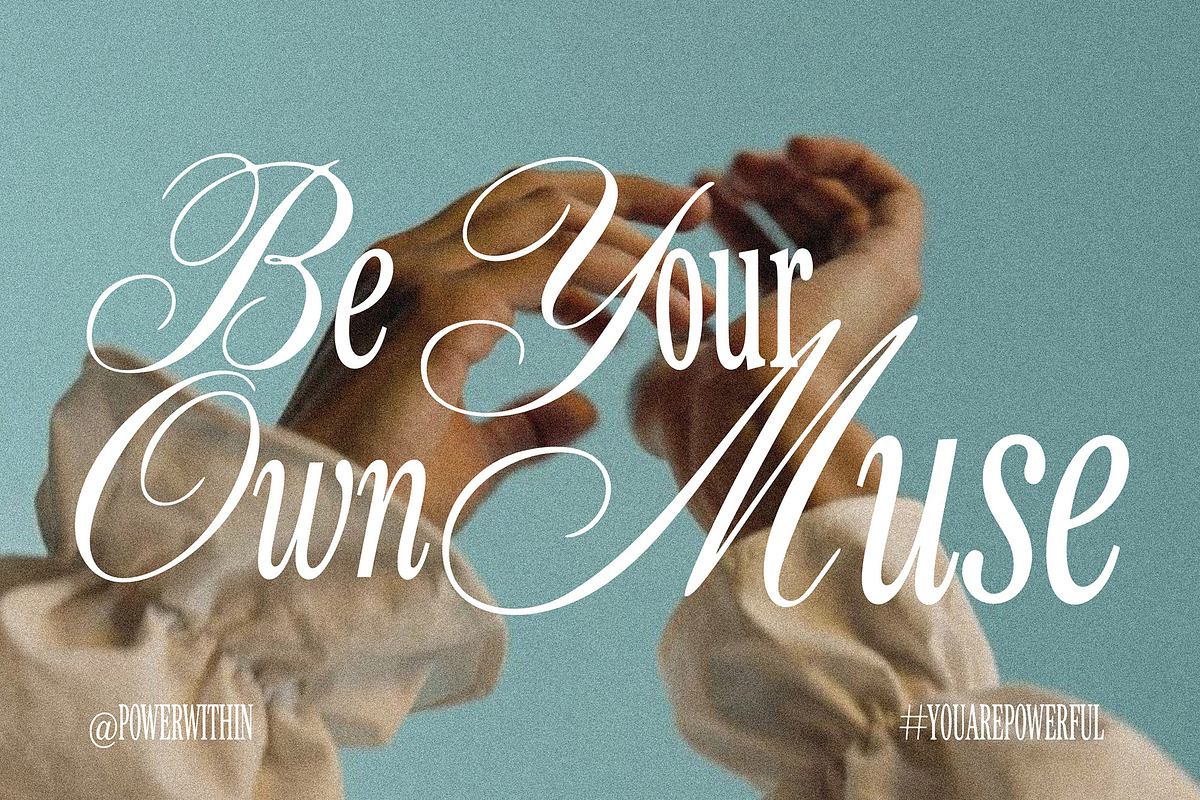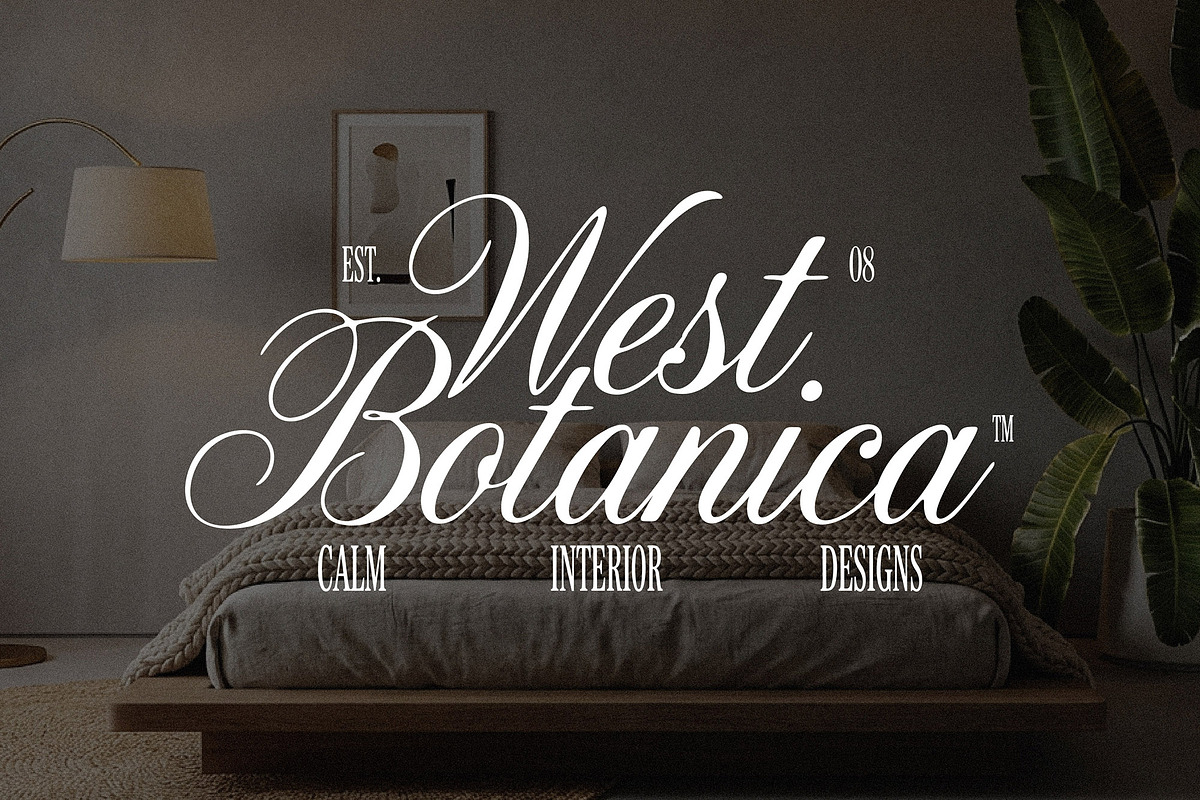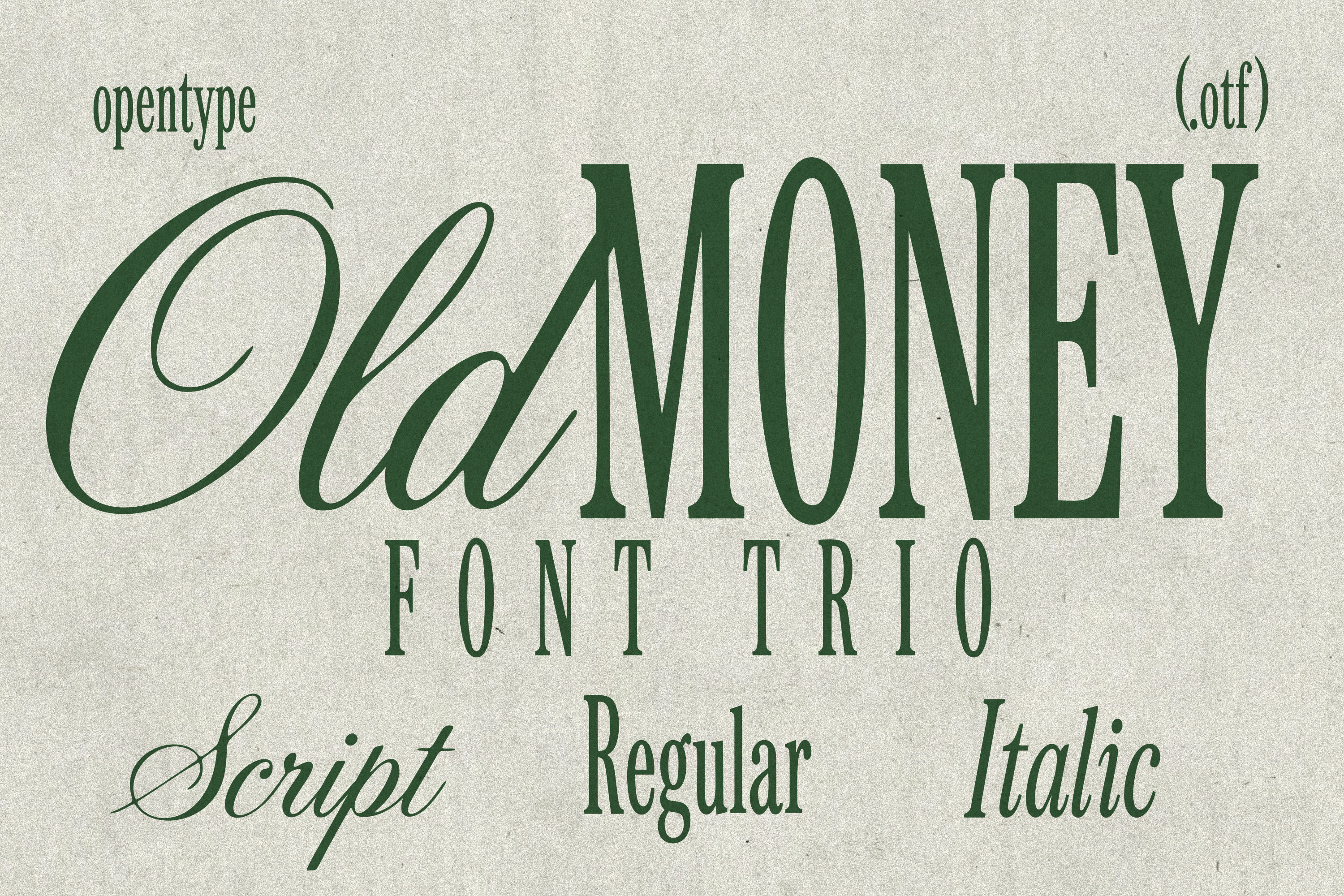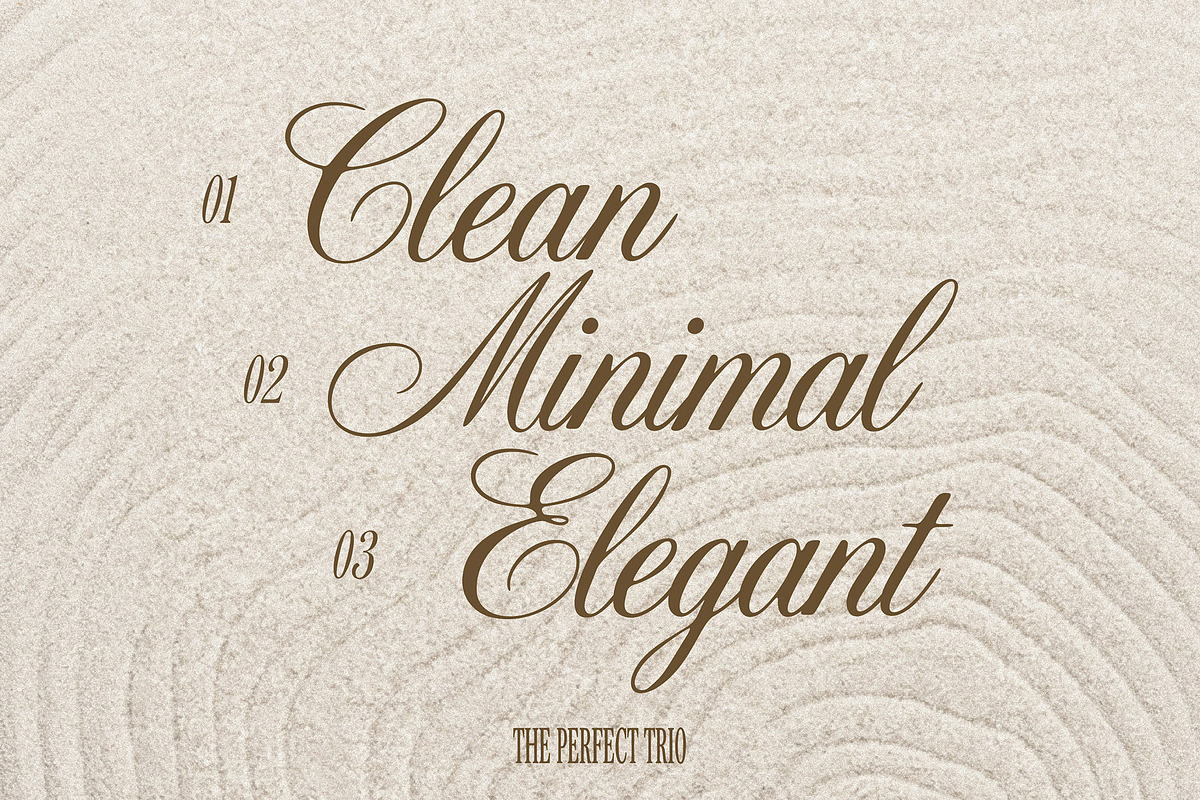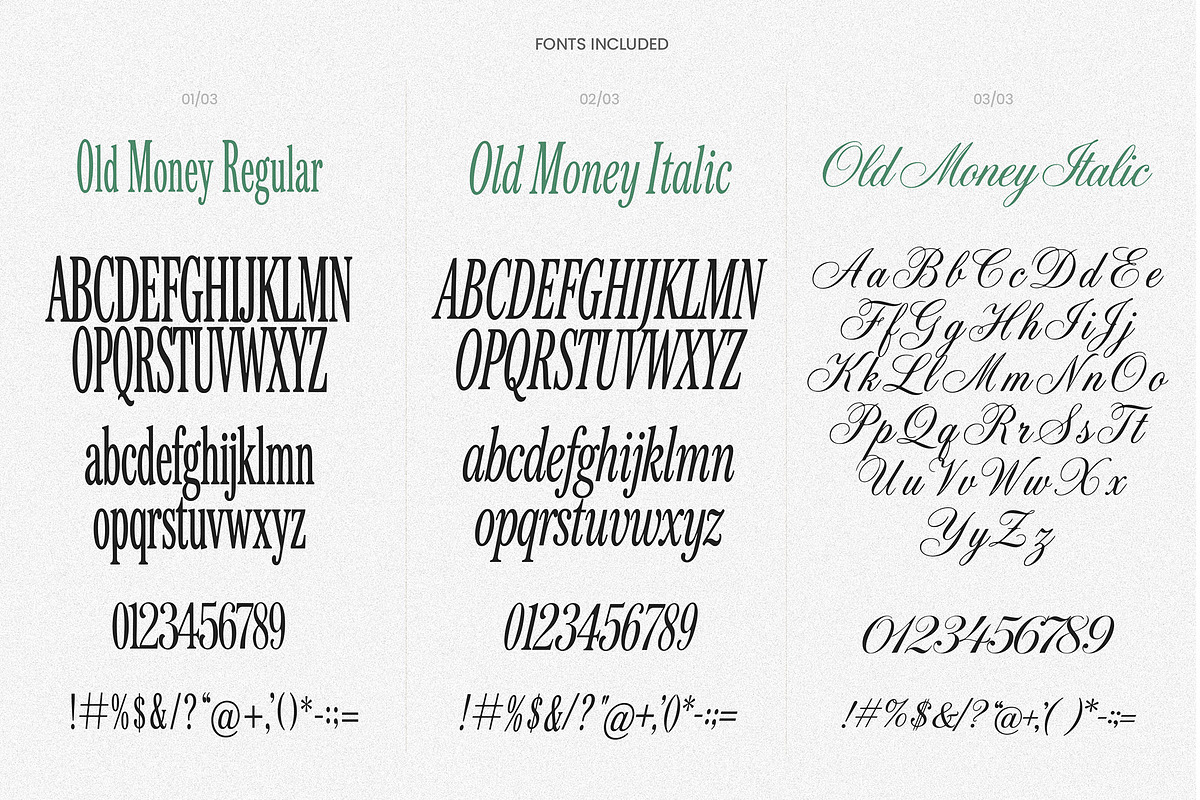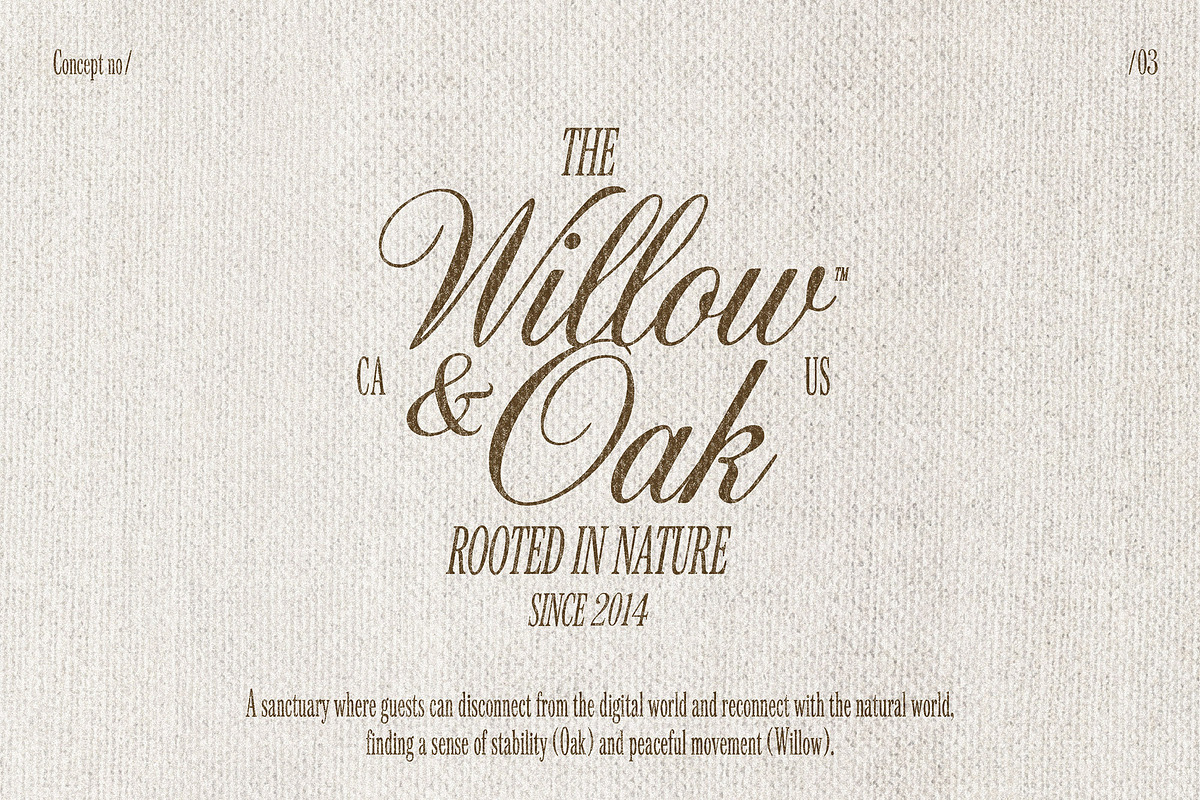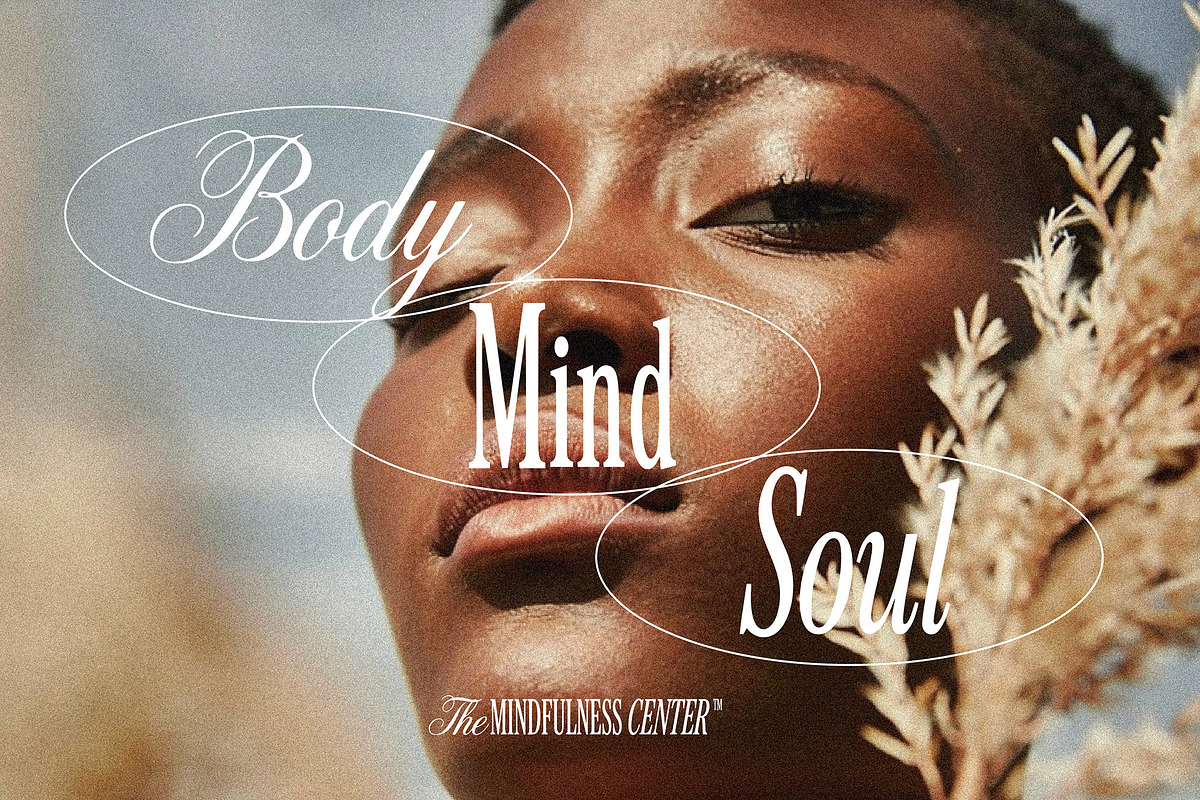
Old Money - Luxury Branding Fonts
Channel the timeless elegance of heritage and high society with the Old Money Font Trio.
Designed to capture the essence of "quiet luxury," this collection perfectly balances vintage collegiate charm with modern editorial sophistication. Whether you are designing for a country club aesthetic, a high-end boutique, or a classic wedding, this trio provides the versatility you need to create work that feels expensive and established.
The collection features a tall, condensed serif that commands attention, paired with a fluid, organic script that adds a touch of handwritten grace.
- Old Money Script (.otf): A flowing, elegant cursive with a vintage signature feel.
- Old Money Regular(.otf): A sophisticated, tall serif with high contrast.
- Old Money Italic(.otf): A refined, slanted variation of the serif for emphasis.
- Luxury Branding: Logos for clothing brands, interior designers, or boutique hotels.
- Wedding Stationery: High-end invitations, menus, and place cards.
- Editorial Design: Magazine headlines, book covers, and fashion layouts.
- Social Media: Aesthetic quote graphics and mood board overlays.